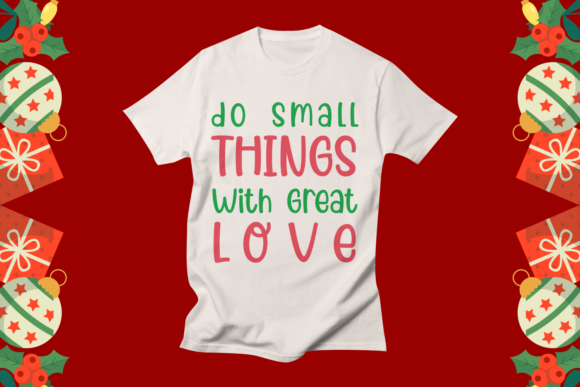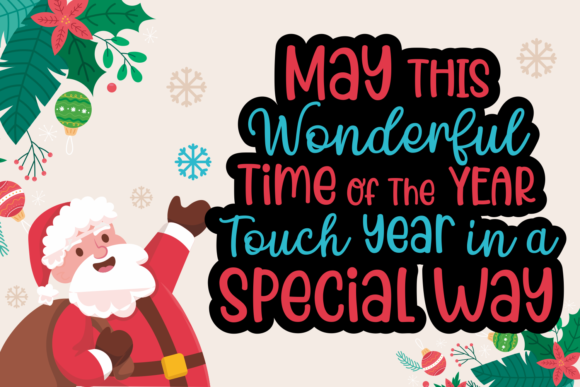
Good Morning Christmas Font
db-ku.com - Script & Handwritten -- Good Morning Christmas is a fun and friendly handwritten font. It is playful, rich and ideal for your festive designs as well as for any other project ideas that you have in mind. Let your imagination run free.